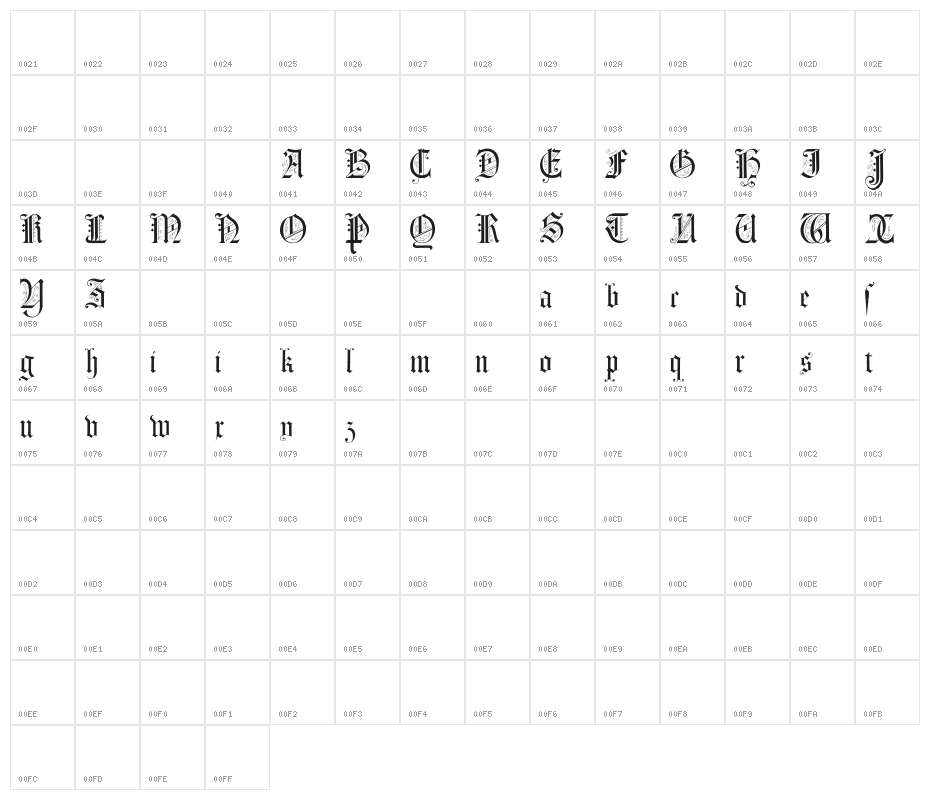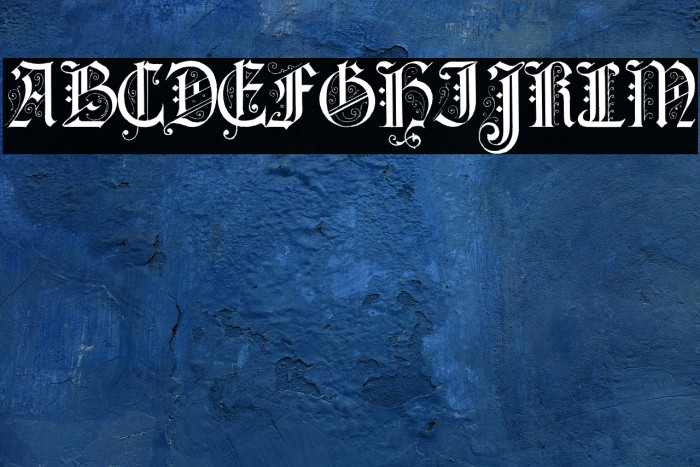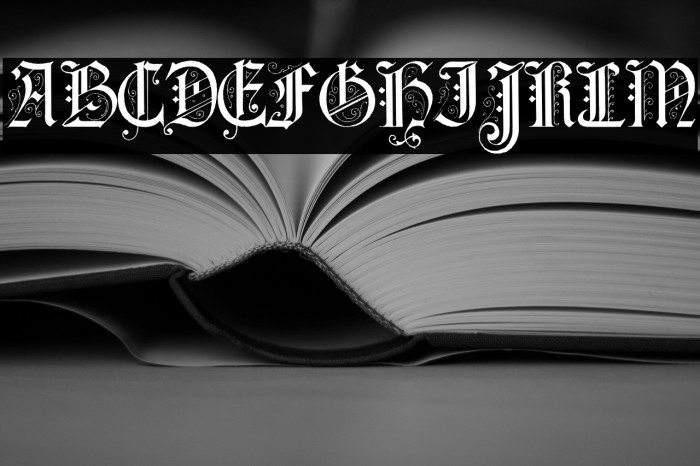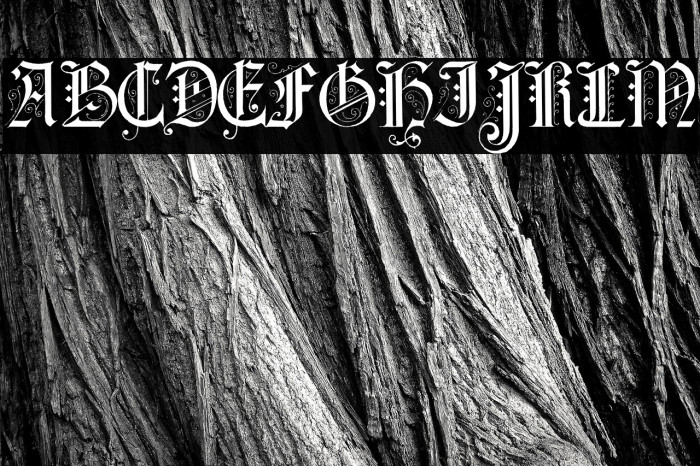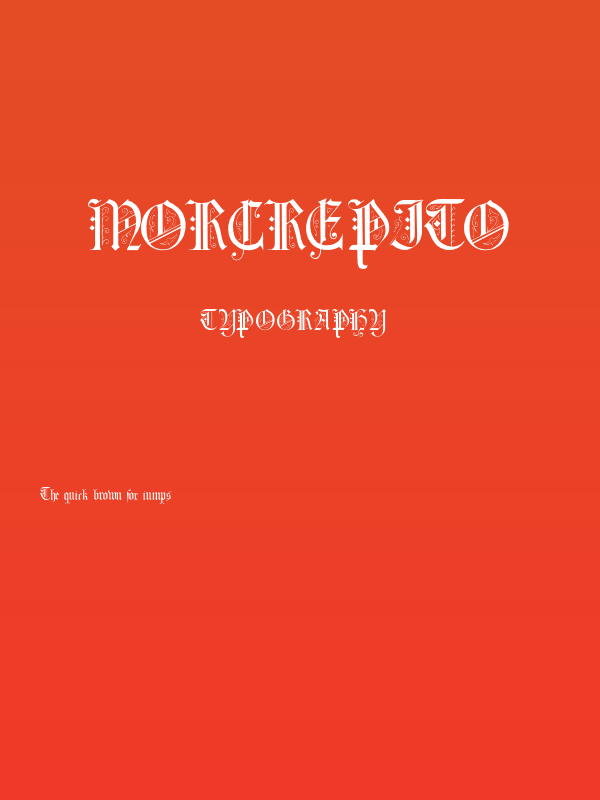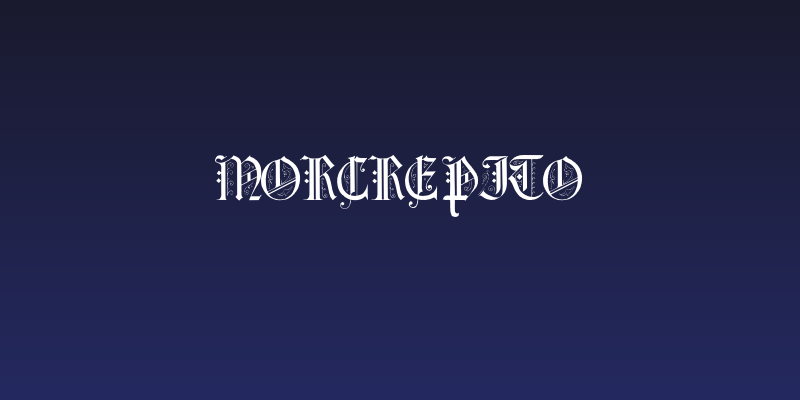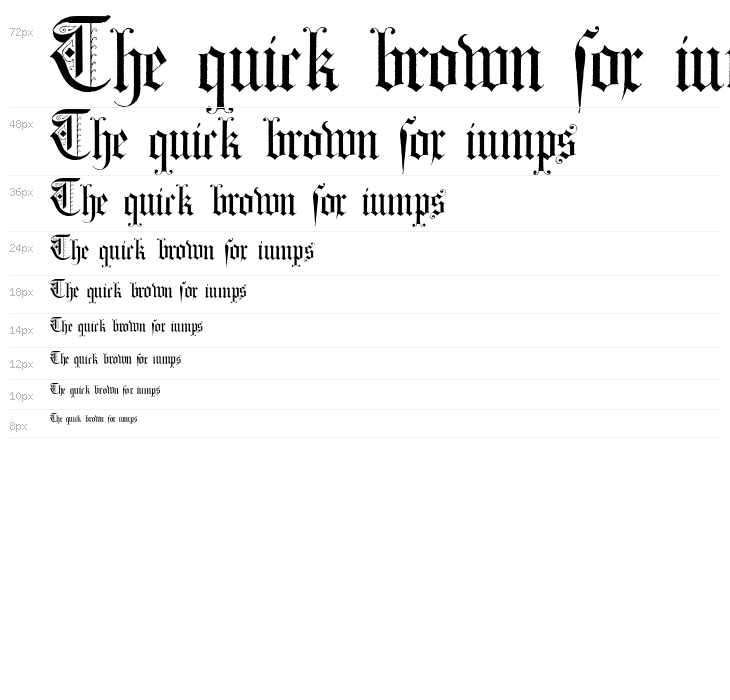
Morcrepito Font
Morcrepito Description
This font is a striking example of Blackletter style, characterized by its intricate and ornate design. The uppercase letters are embellished with elaborate swirls and flourishes, giving them a regal and historic appearance. The lowercase letters maintain the traditional sharp angles and bold strokes typical of Blackletter fonts, creating a sense of authority and tradition. The numbers and special characters are equally detailed, ensuring consistency across the entire typeface. This font exudes a medieval and gothic aesthetic, making it ideal for projects that require a touch of historical elegance.
| Proposed Projects | Ideal for historical documents, wedding invitations, gothic-themed designs, and branding that requires a classic touch. |